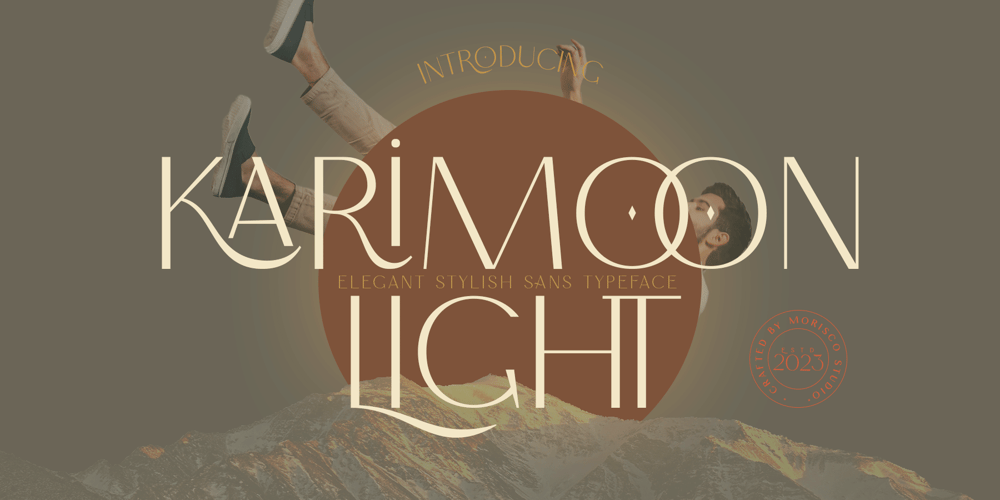
Karimoon Light Font Family was designed by Fathur Rahman and published by Morisco Studio. Karimoon Light contains 1 styles and family package options. Karimoon Light is an elegant stylish sans typeface with a unique character designed by morisco studio. This typeface is well-suited for headlines and any project, like branding, print template, logo, and more. Karimoon is an Arabic word which means noble, and moonlight is the light of the moon. So that it can be interpreted as the light of the glorious moonFeatures: Uppercase & Lowercase Symbols & Punctuation Multilingual Alternate Ligature Files you get:Karimoonlight RegularI really hope you enjoy using Karimoonlight. Please don’t hesitate to drop me a message if you have any questions. Thank You and Happy DesigningShow Less